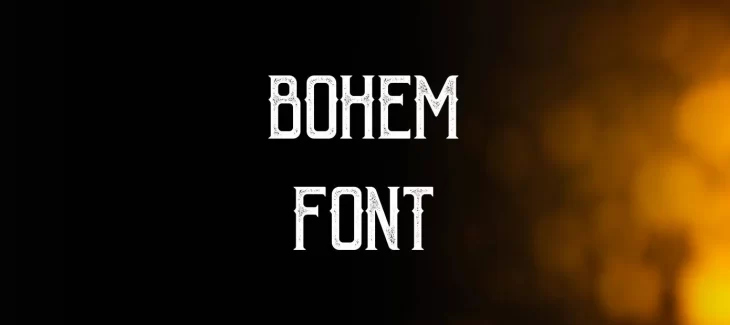
Bohem Font is a fancy typeface created by Czech-type designer Jakub Stýblo. It was released through Google Fonts in 2018. Jakub Stýblo is a typeface designer from the Czech Republic. He has designed fonts for both private clients and large organizations such as Google, Adobe, Microsoft, and Apple. His work has been featured in numerous publications.
The Font family includes six weights (Light, Regular, Medium, Bold, Black, and Extra Black) and supports Latin, Cyrillic, and Greek character sets. This Font was designed with both web and print applications in mind. It includes features such as small caps, old-style figures, fractions, and superscripts/subscripts.
This font style looks like a vintage font with a touch of modernism, which makes it perfect for branding, headlines, and other display uses. It is also known for its immense language support same as the mistral font and it can support many different international alphabets.
Who Used Bohem Font?
This font is also commonly used in formal documents and has a strong, classic feel to it. The font was inspired by classical Roman letters and has a very traditional feel to it. This font style has been used for centuries and is still popular today. This Font is a great choice for formal documents that you can create with the help of Microsoft word.
Bohem Font Family Appearance
| Name | Bohem Font |
| Designer | Jakub Stýblo |
| Style | Fancy |
What are the unique features of Bohem Font?
Bohem Font includes six weights (Light, Regular, Medium, Bold, Black, and Extra Black) and supports Latin, Cyrillic, and Greek character sets.
Is Bohem an unprofessional font?
No, This Font is a professional quality typeface. It was designed by Jakub Stýblo, a Czech-type designer.